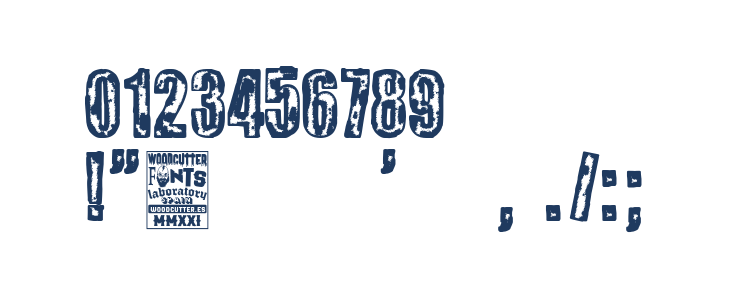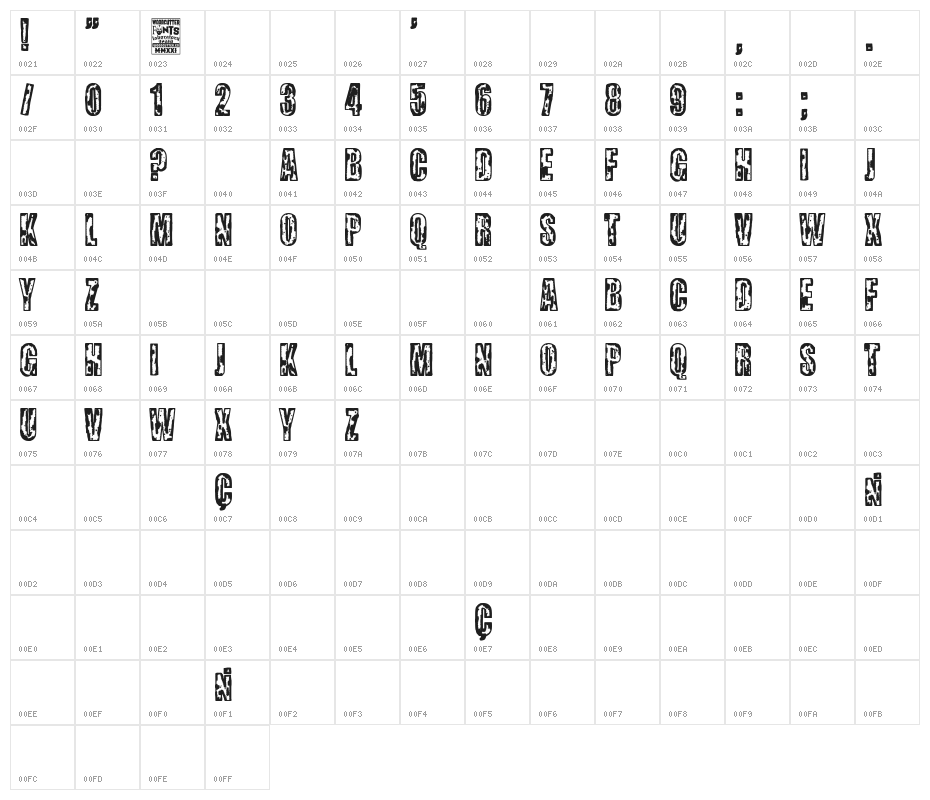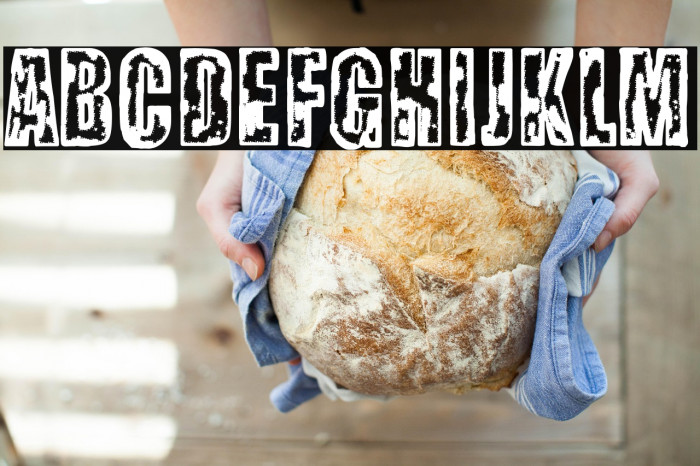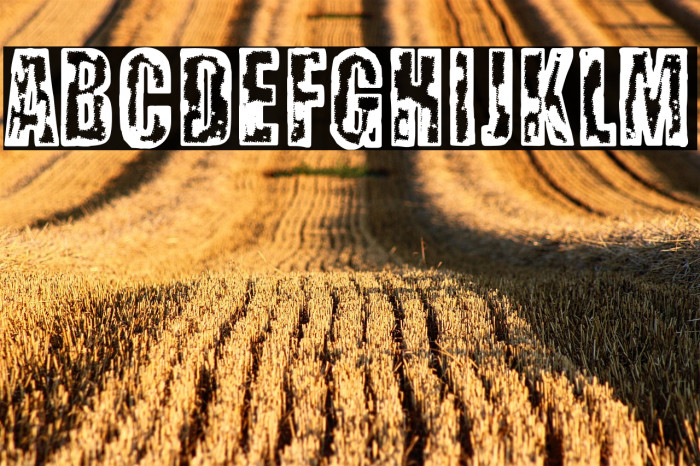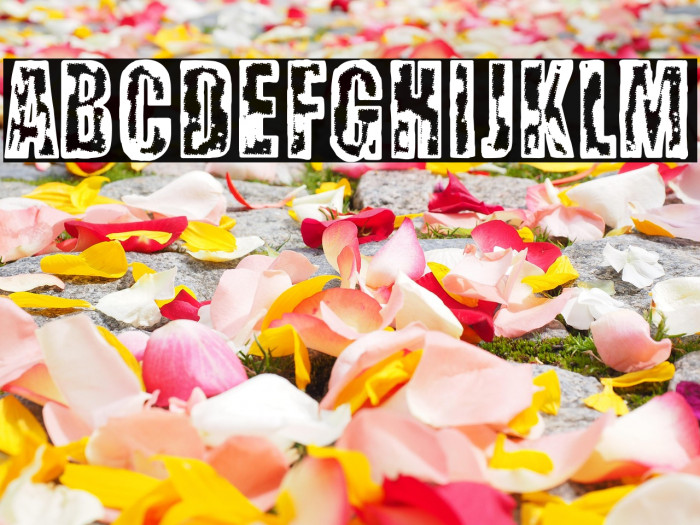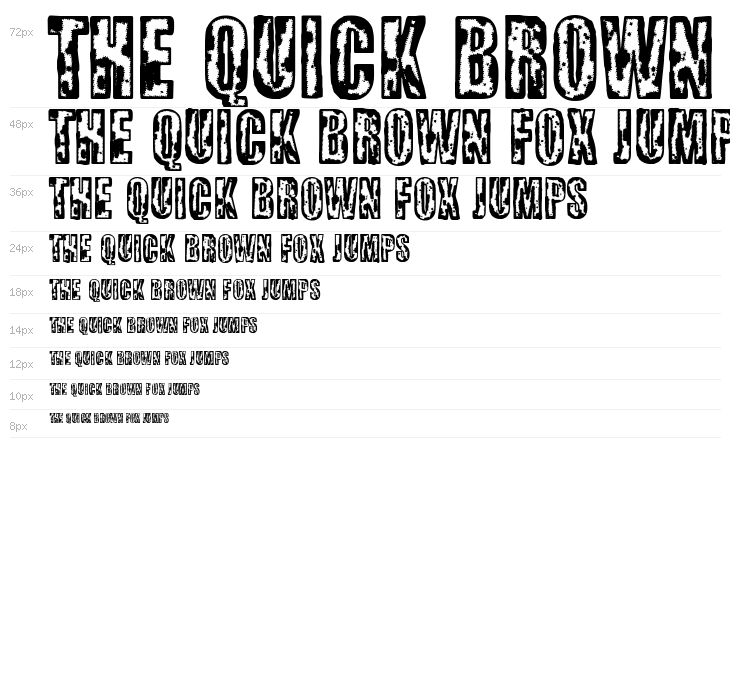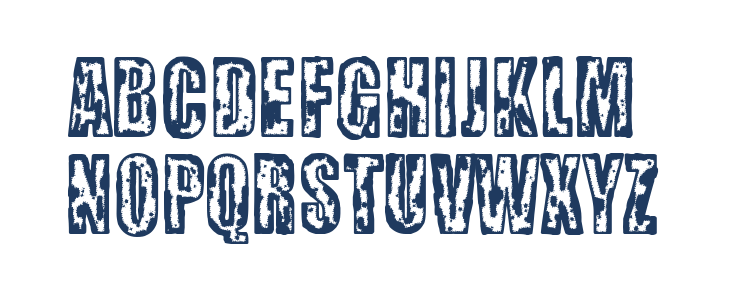
Science City Font
Science City Description
This font features a bold, distressed style with a rugged, textured appearance. Each character is heavily weathered, giving it a vintage, industrial feel. The uppercase letters are prominent and commanding, while the lowercase letters maintain the same distressed aesthetic. Numbers and special characters are equally bold and textured, ensuring consistency across all glyphs. The font's rough edges and uneven surfaces suggest a hand-crafted or worn look, making it ideal for projects that require a gritty, authentic touch.
| Proposed Projects | Ideal for posters, album covers, branding for vintage or industrial-themed products, and any design needing a gritty, authentic touch. |